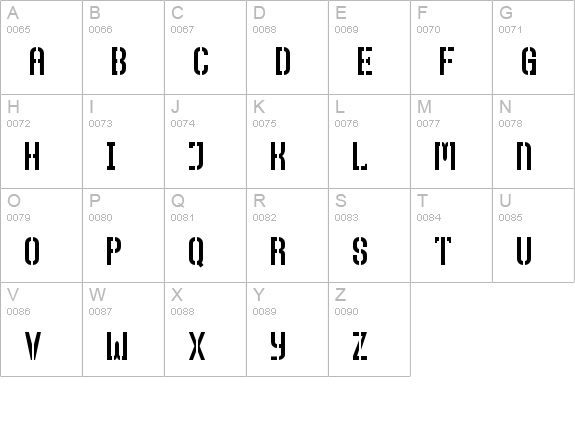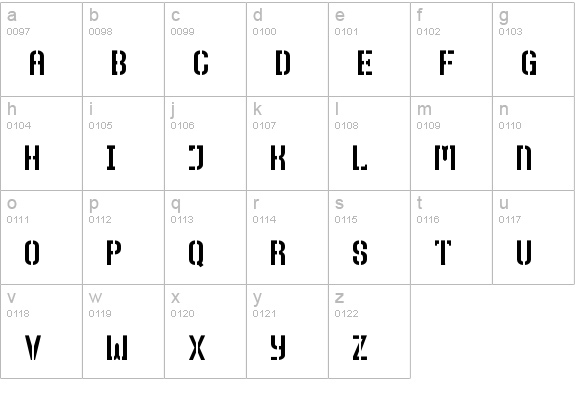
Top Secret Font Details
Introducing Top Secret, a font that exudes an air of mystery and intrigue. With its bold and commanding presence, this font is perfect for projects that require a touch of secrecy. Whether you're designing a poster for a classified event or creating a logo for a covert agency, Top Secret is sure to captivate your audience. This font showcases a unique combination of sleek lines and sharp edges, giving it a distinct and cutting-edge look. It commands attention with its strong characters and eye-catching details, making it perfect for headlines, titles, and any design element that needs to make a statement. But what sets Top Secret apart is its versatility. It seamlessly transitions from serious and professional to playful and whimsical, making it suitable for a wide range of projects. Its carefully crafted design ensures legibility even at smaller sizes, allowing you to use it for body text as well. The best part? Top Secret is freely available to download at FontsMarket.com. Yes, you read that right. You can now add this incredible font to your collection without spending a dime. So why wait? Unleash your creativity and take your design projects to new heights with Top Secret.